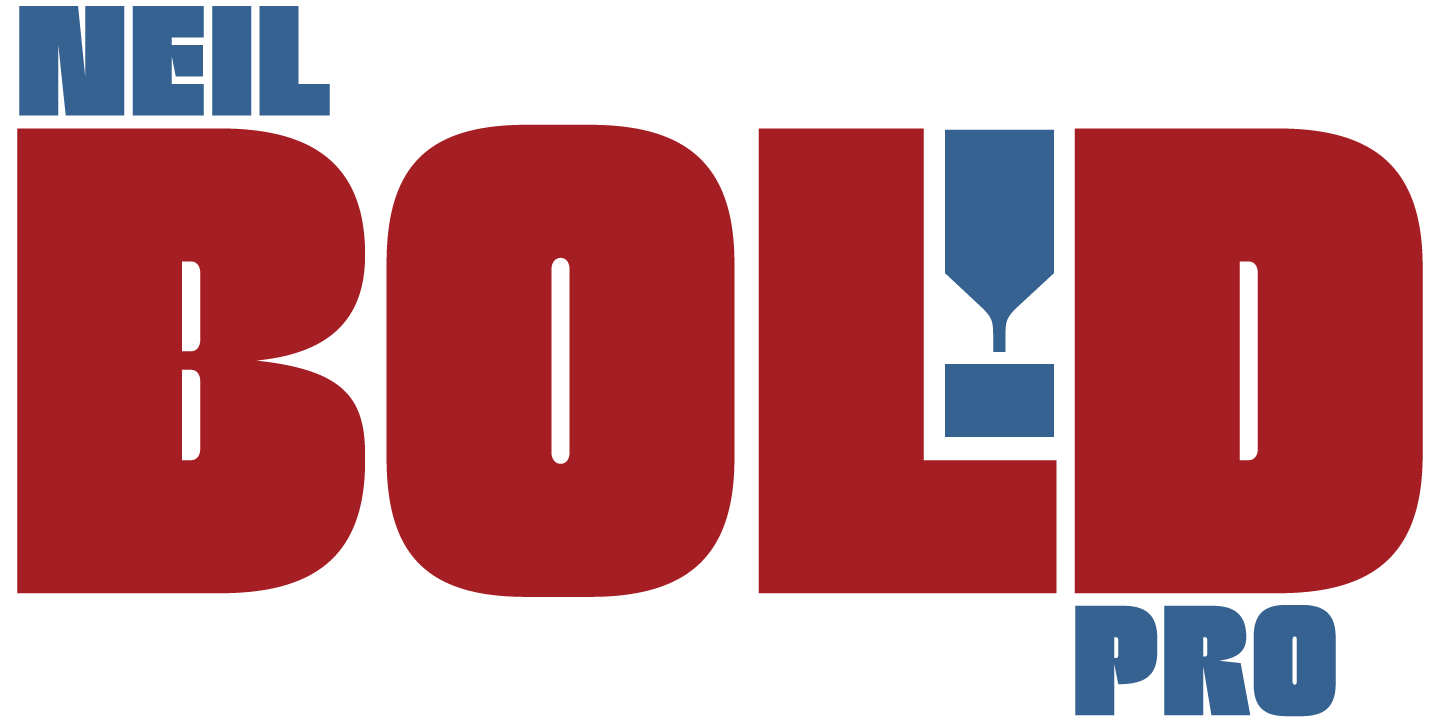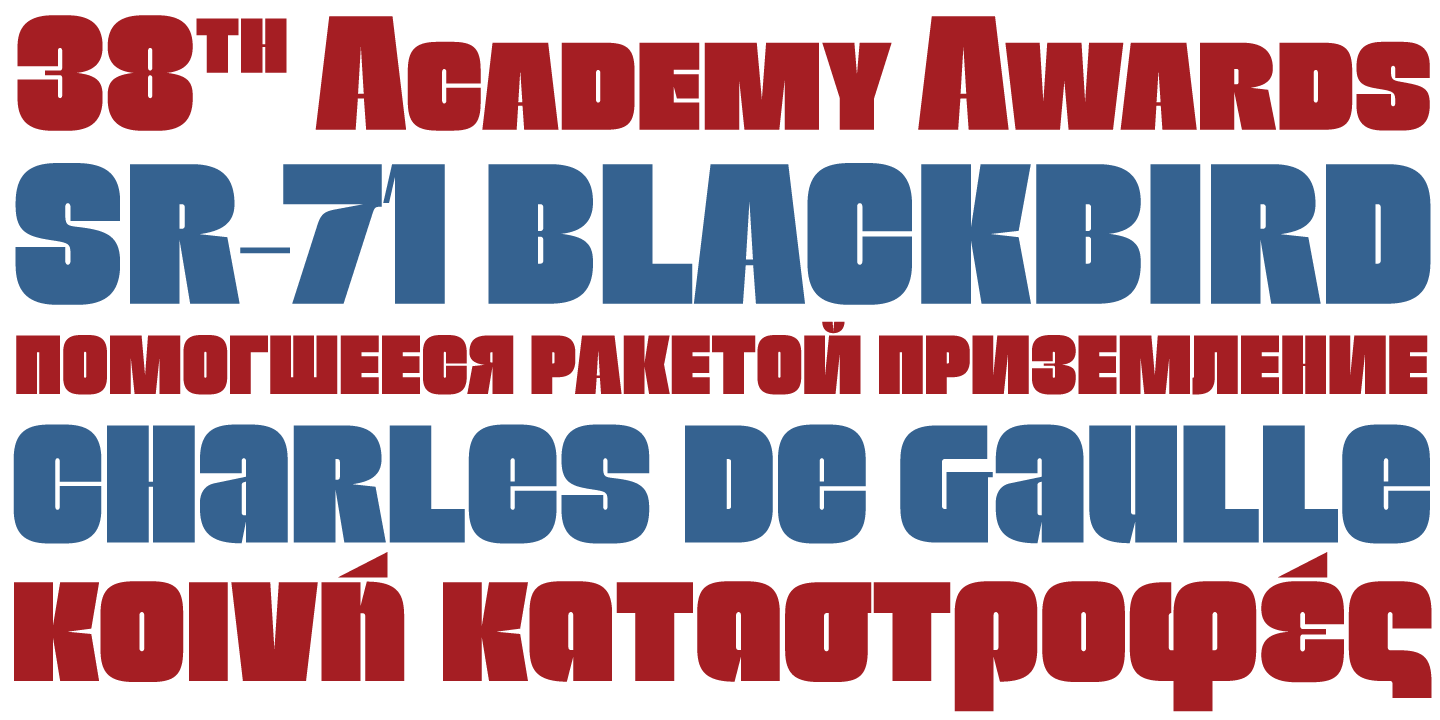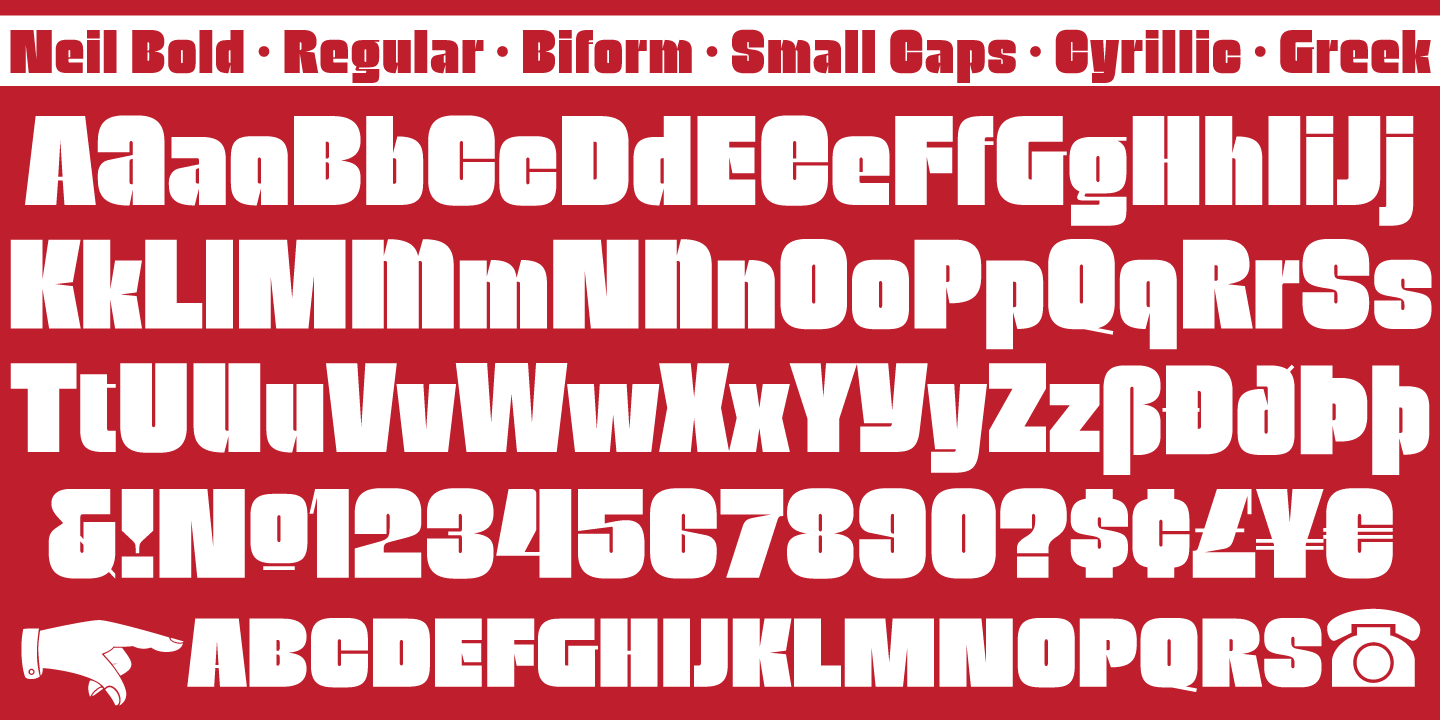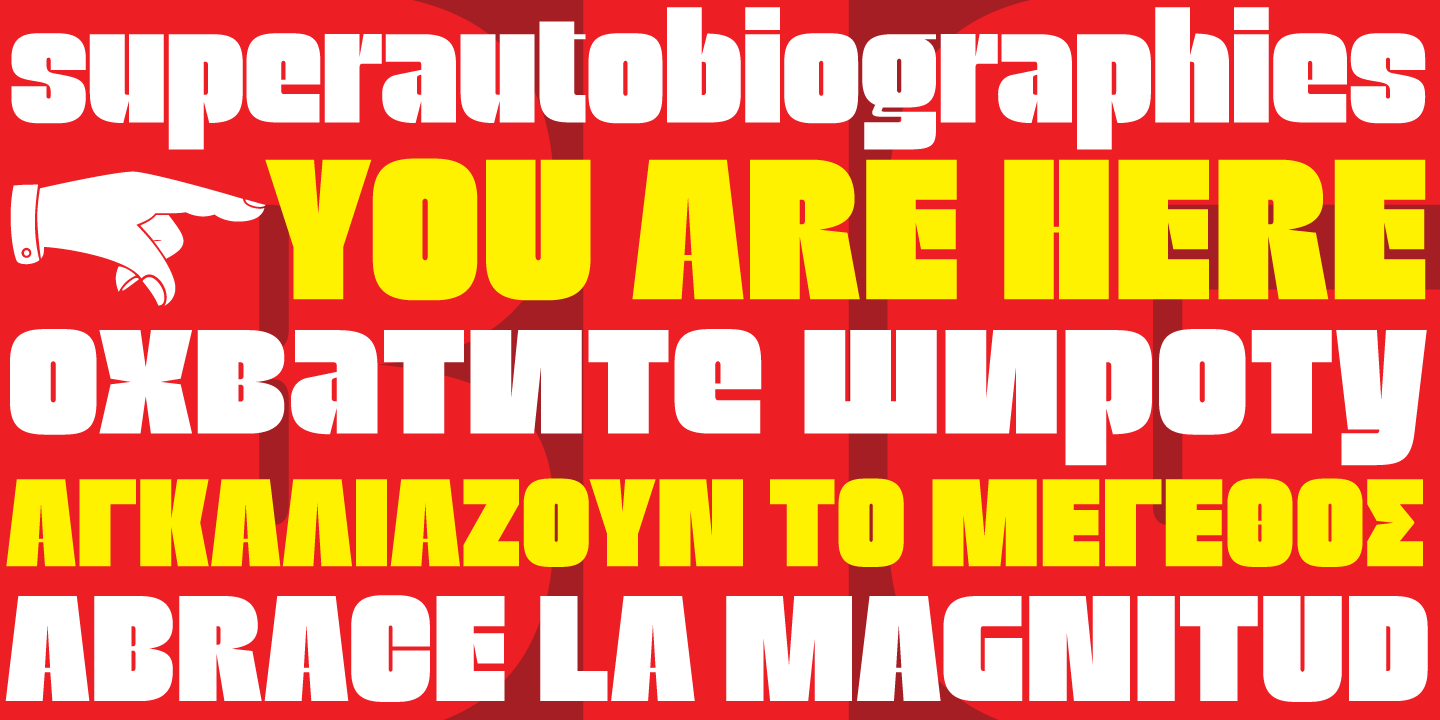
Wayne Stettler (December 10, 1934 - May 29, 2011) was born in Allentown, PA. He graduated from the Philadelphia College of Art in 1956, majoring in advertising design. After working as a designer with the U.S. Army for two years, he became the design director for Smith, Kline & French Laboratories (now GlaxoSmithKline), where he oversaw the design of packaging and collateral for pharmaceutical companies for more than fifteen years. In the late 1970s he ran his own design studio in Philadelphia, designing packaging and sales displays for drug and cosmetic
clients.
Stettler’s popular Typositor-era typeface Neil Bold won the International Typeface Design Competition in 1966, and his paintings have been exhibited at many galleries and exhibits during the 1980s and 1990s.